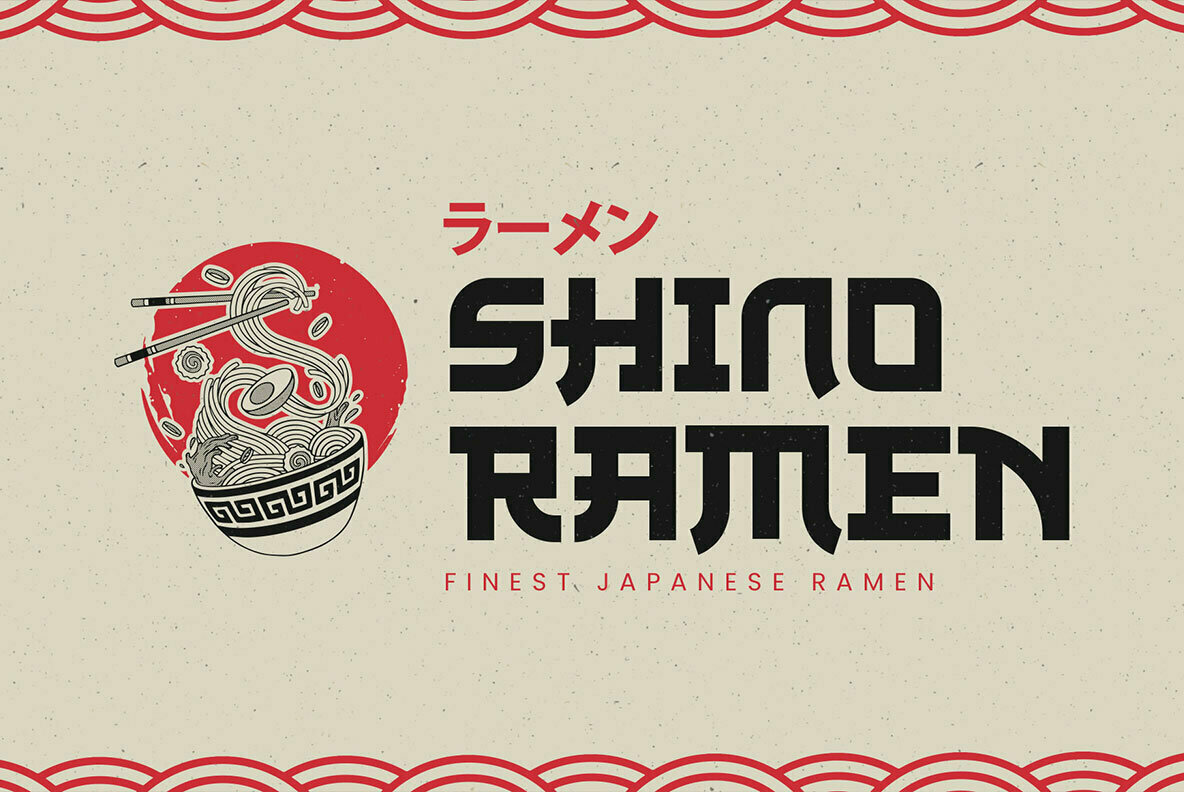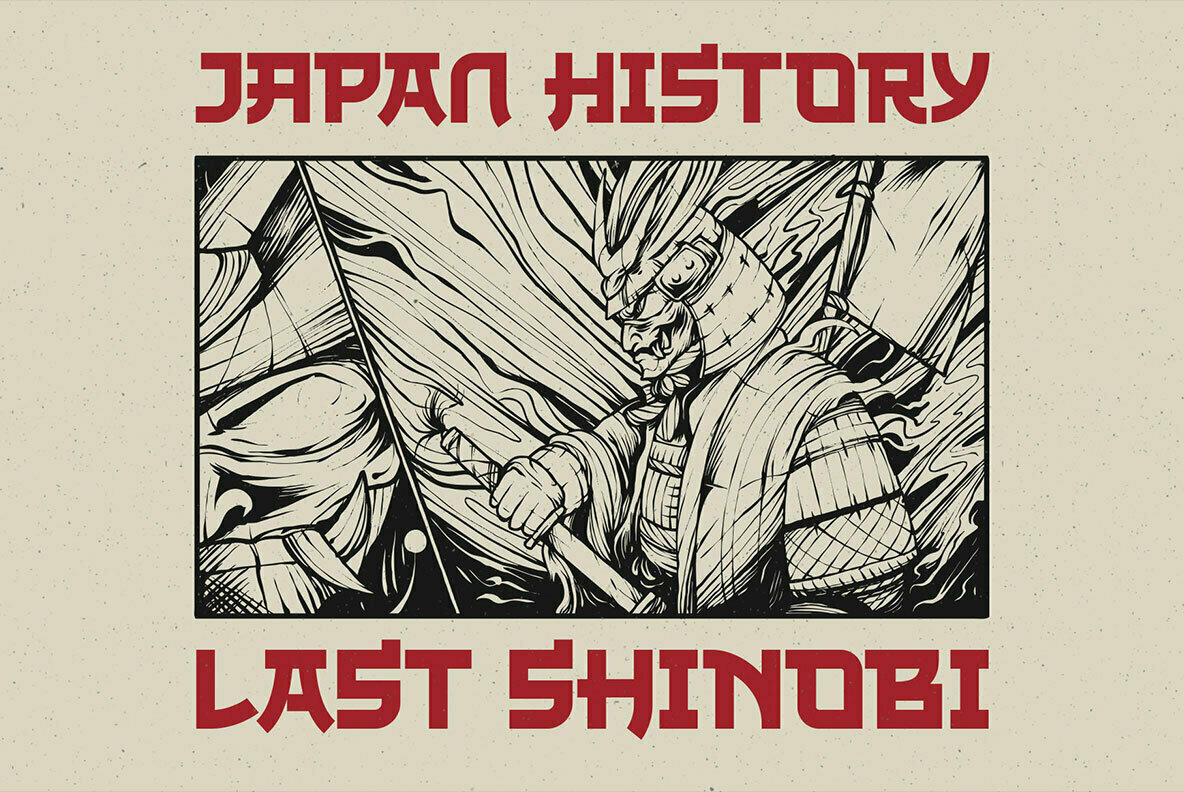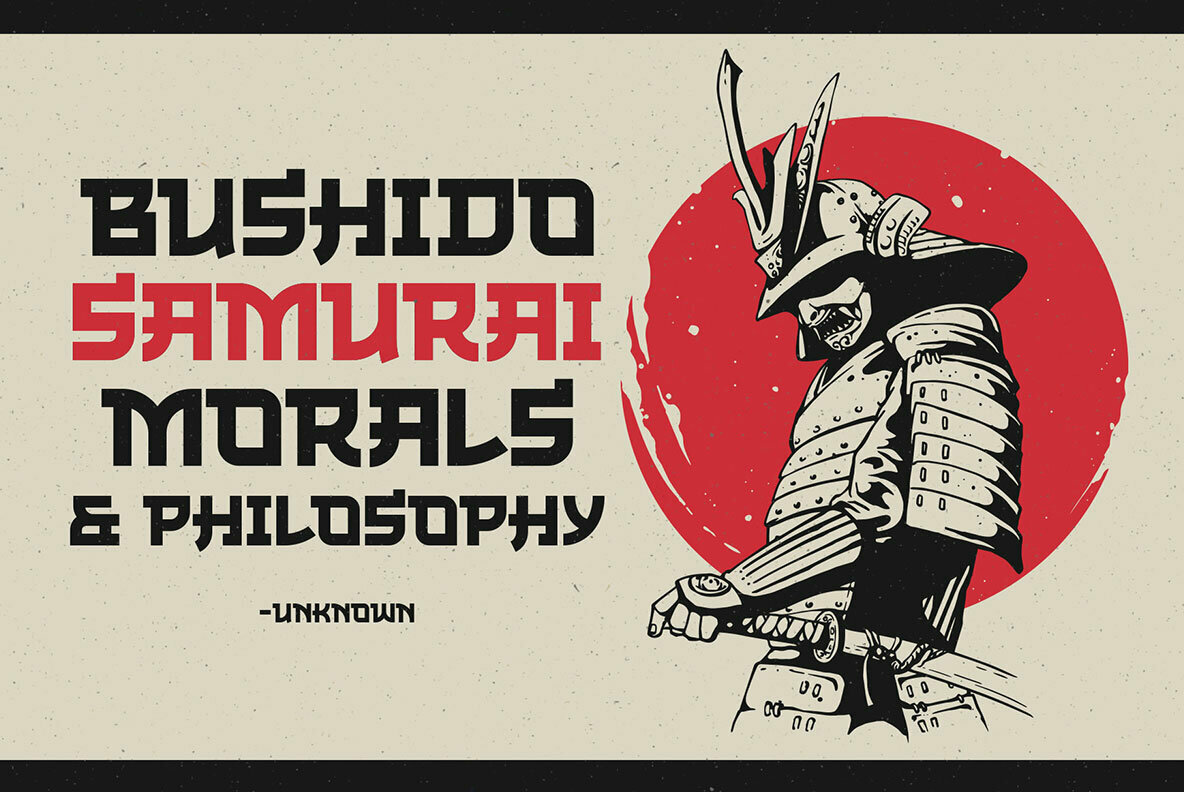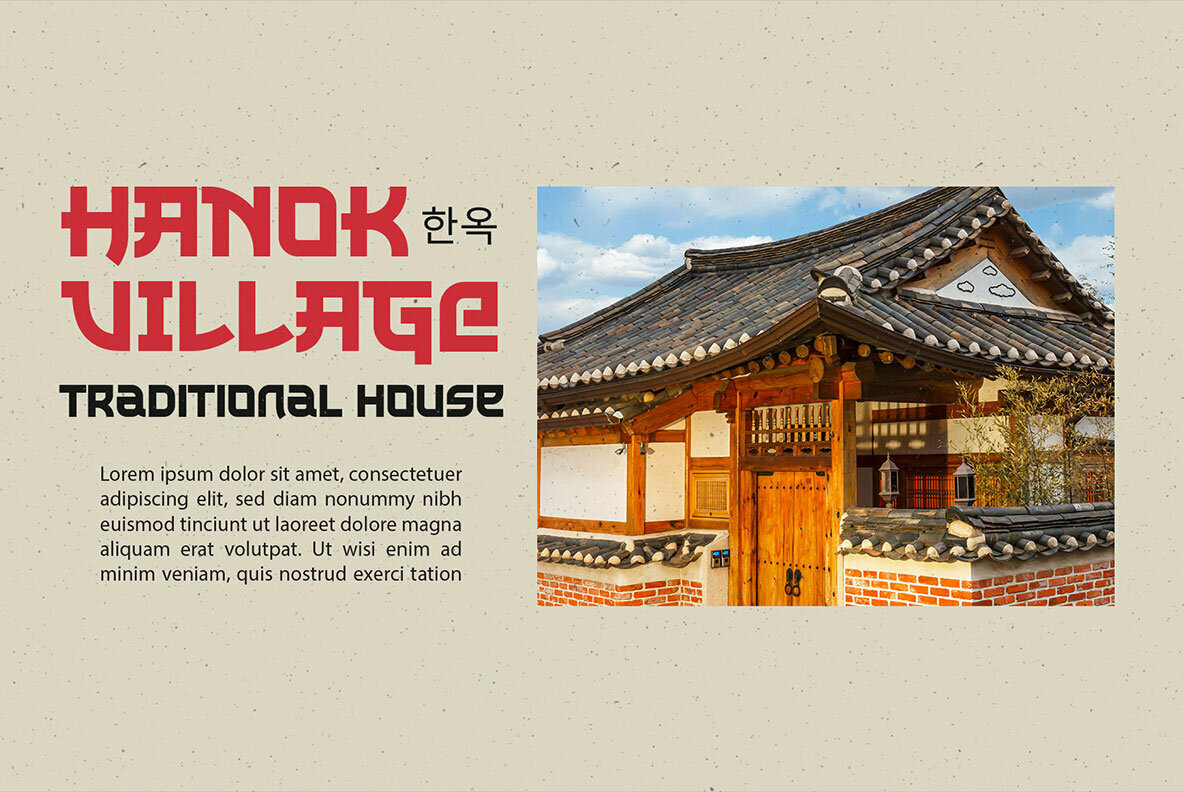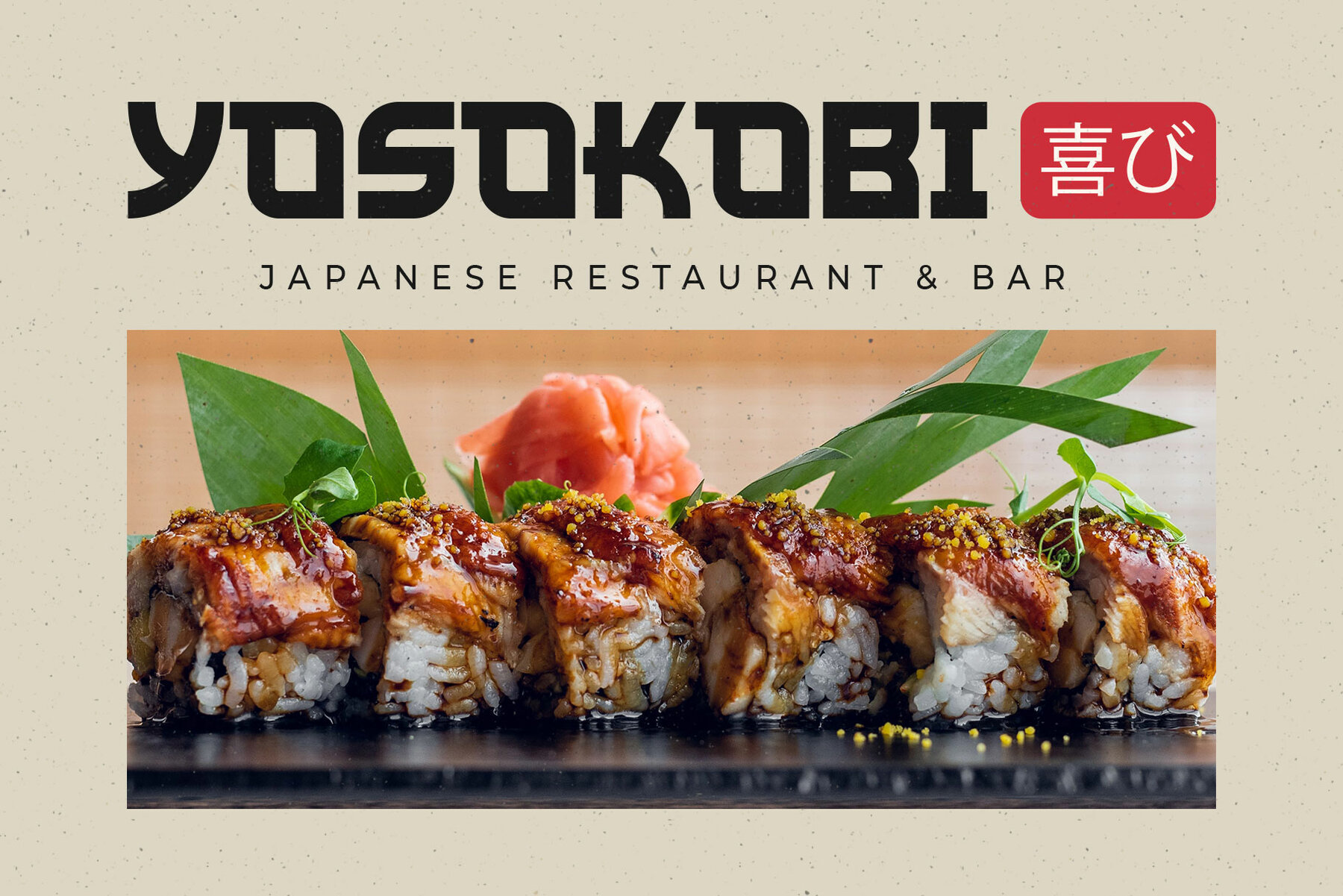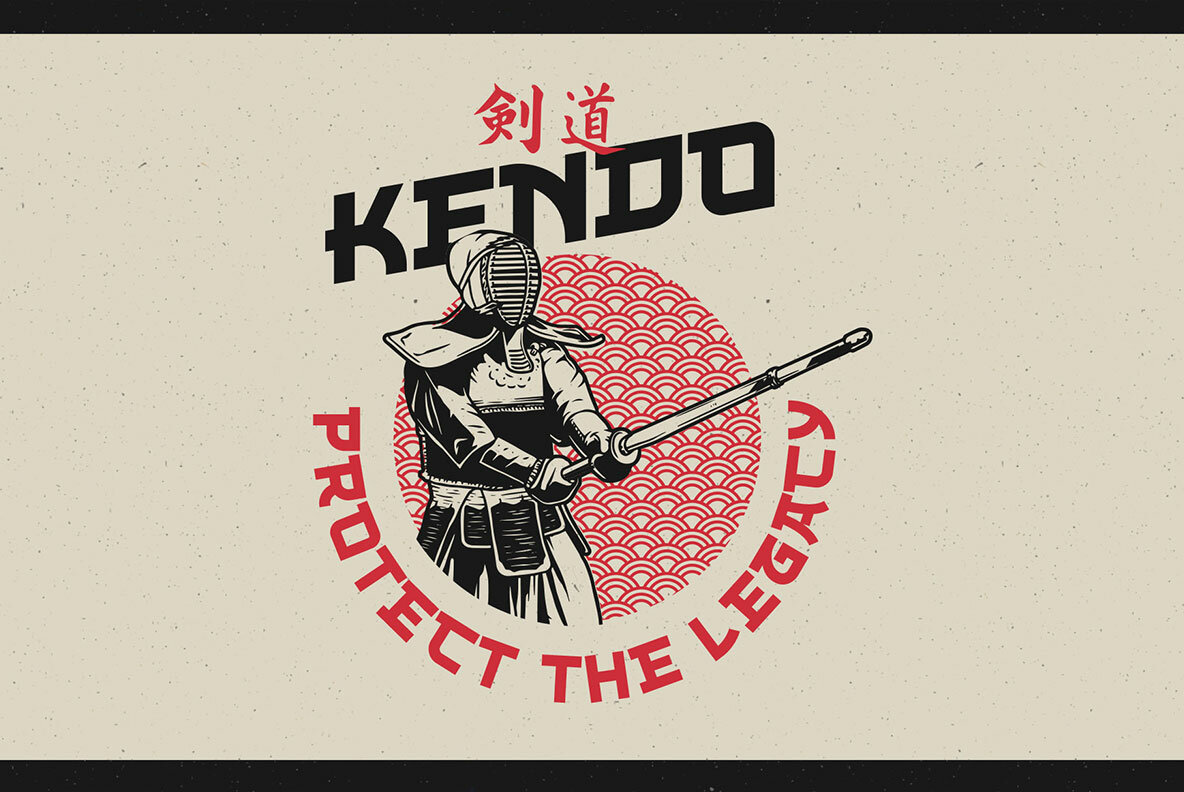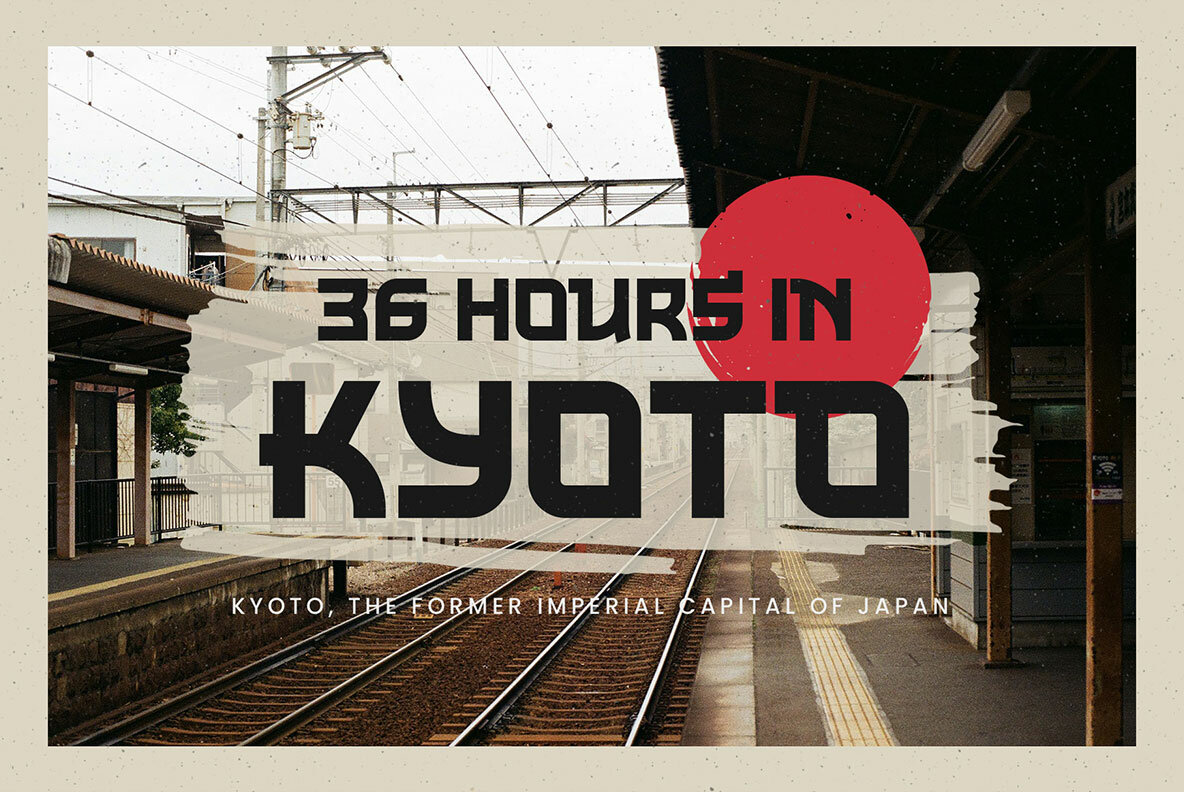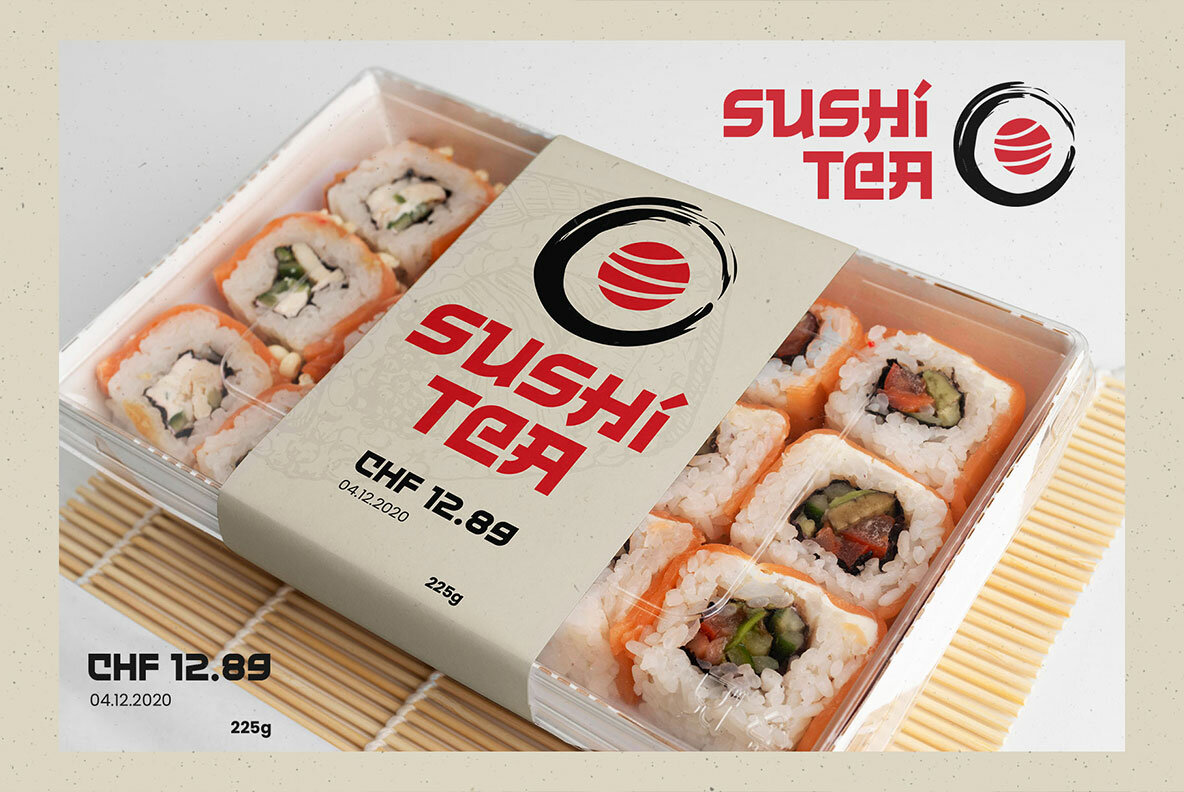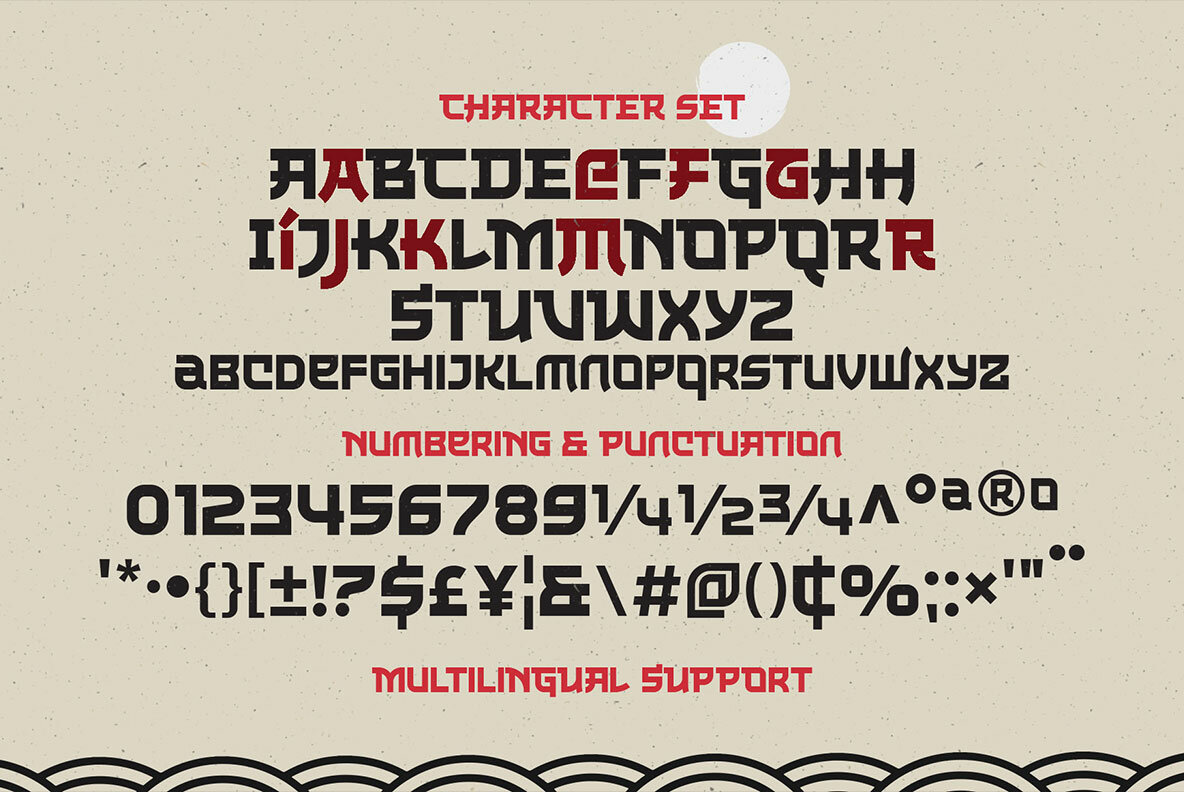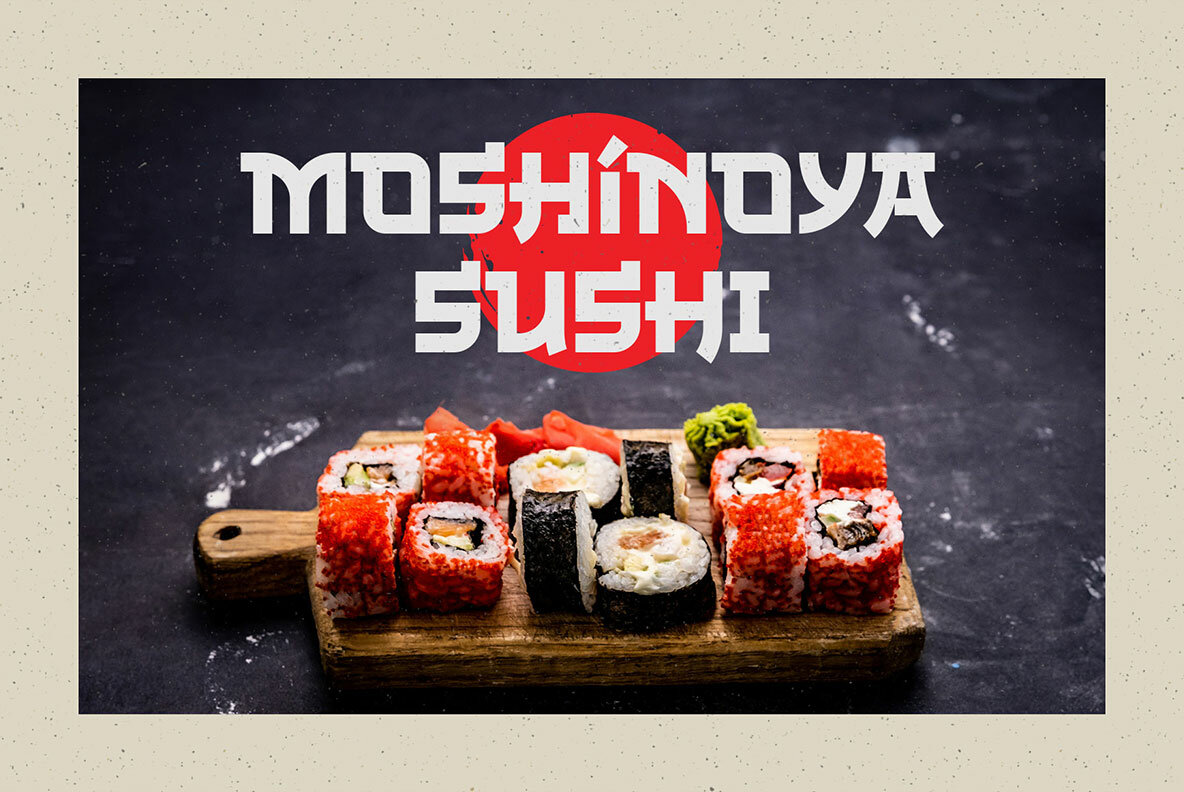
The Last Shuriken Font
The Last Shuriken Regular
The Last Shuriken is a striking all-caps typeface that draws inspiration from modern Japanese food branding and anime art. Designed with bold strokes, it creates visual impact perfect for diverse graphic applications. This font harmonizes contemporary aesthetics with the cultural motifs of Japan, making it ideal for projects that require a strong and distinct personality. Whether designing a logo, poster, or apparel, The Last Shuriken offers versatility and style. Its robust design excels in display settings, ensuring your work stands out.The Last Shuriken: Bold Japanese-Style Typeface